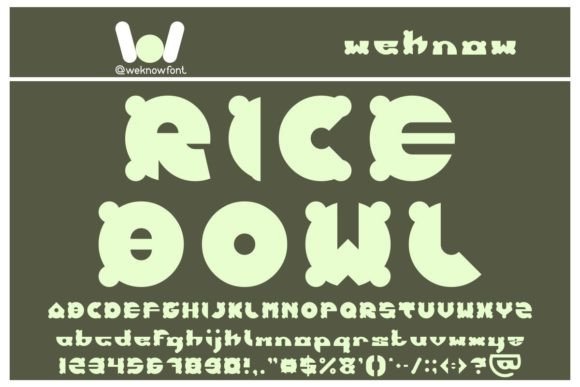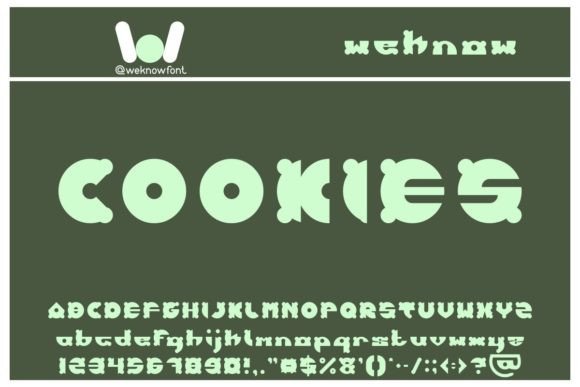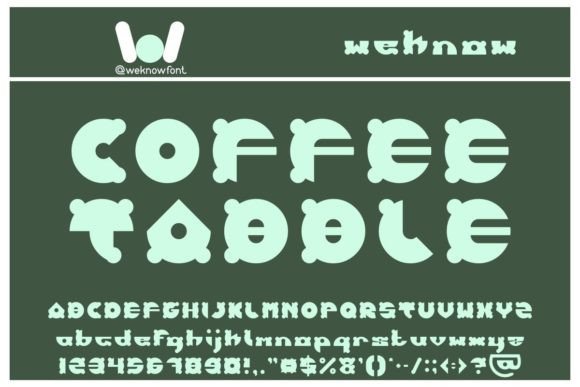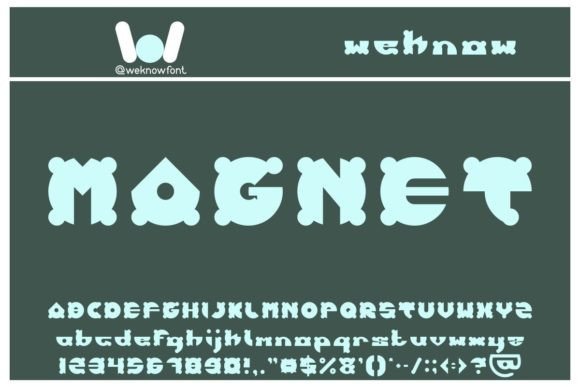
Introduction to Grizzly and Bear Font
Grizzly & Bear is a fun and unique display font.
Whimsical and a bit quirky, this font will brighten up each of your designs Add it confidently to your projects, and you will love the results.
Key Features of Grizzly and Bear Font